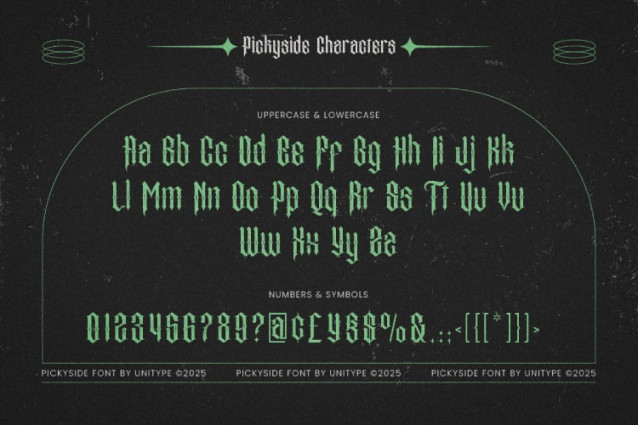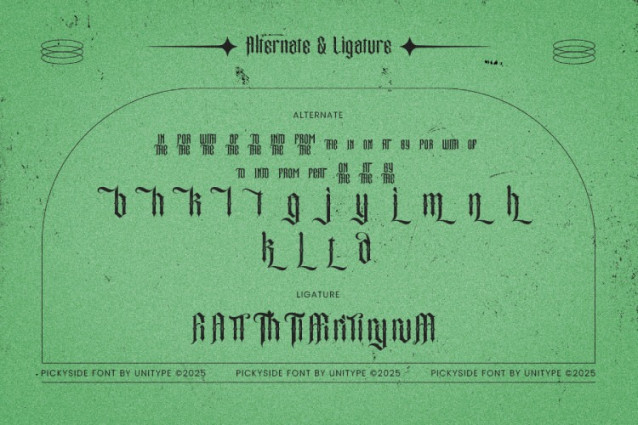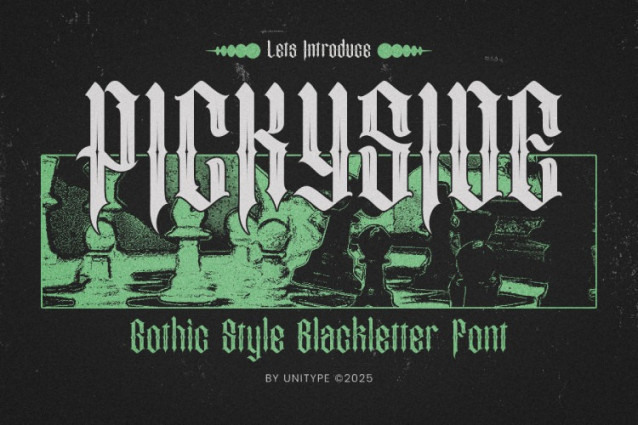
Pickyside Blackletter Font
Pickyside Blackletter Font is a gothic styled blackletter font. Add this font to your creative ideas and notice how it will make them stand out!